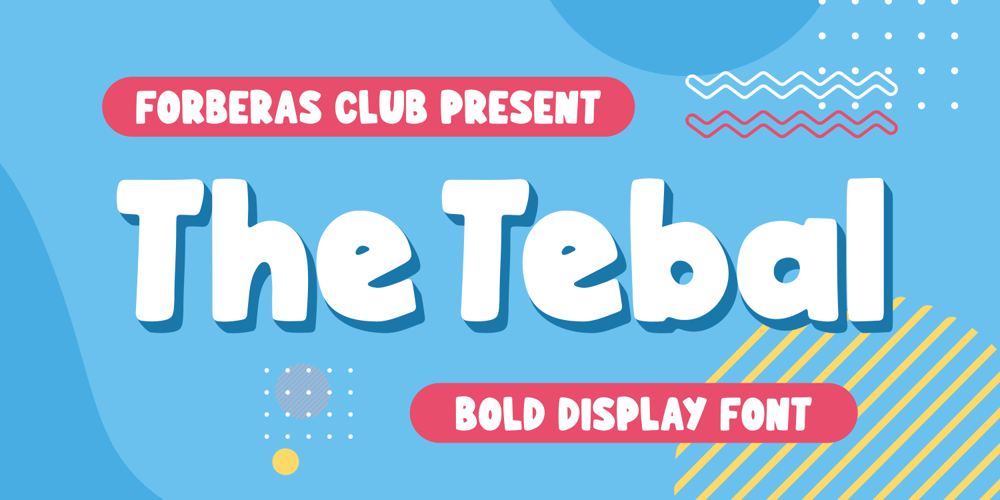
The Tebal Font Family was designed by ANGGI HERMAWAN and published by Forberas Club. The Tebal contains 1 styles and family package options. The Tebal font is funny font style. It’s be nice if you application for cute, funny, happy, cartoon, comic or something abut funny.